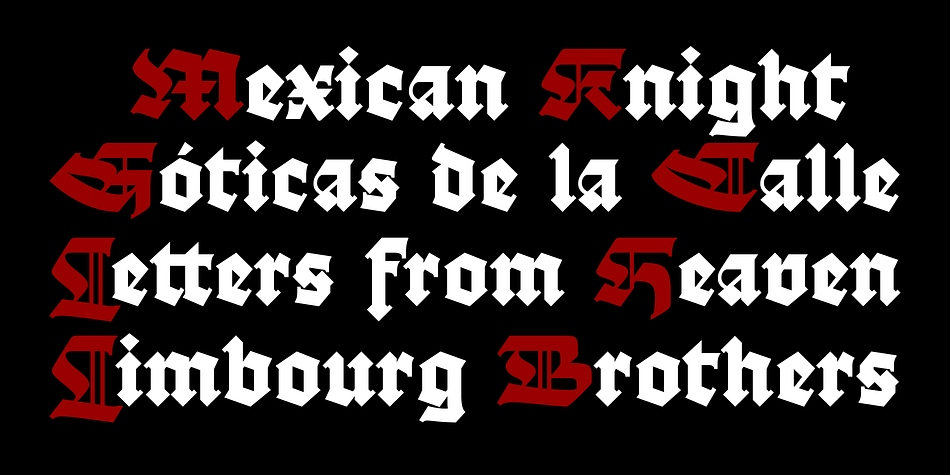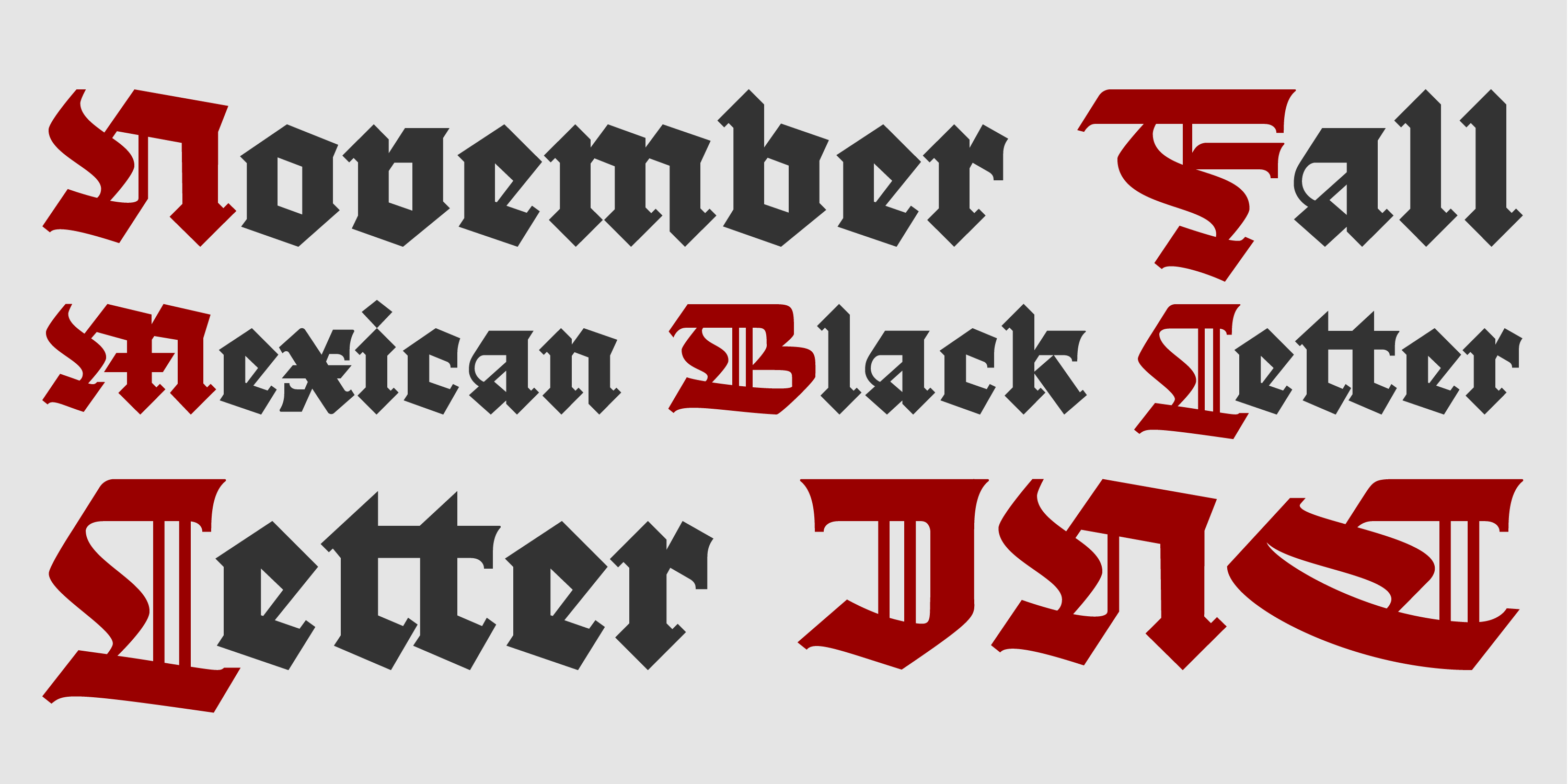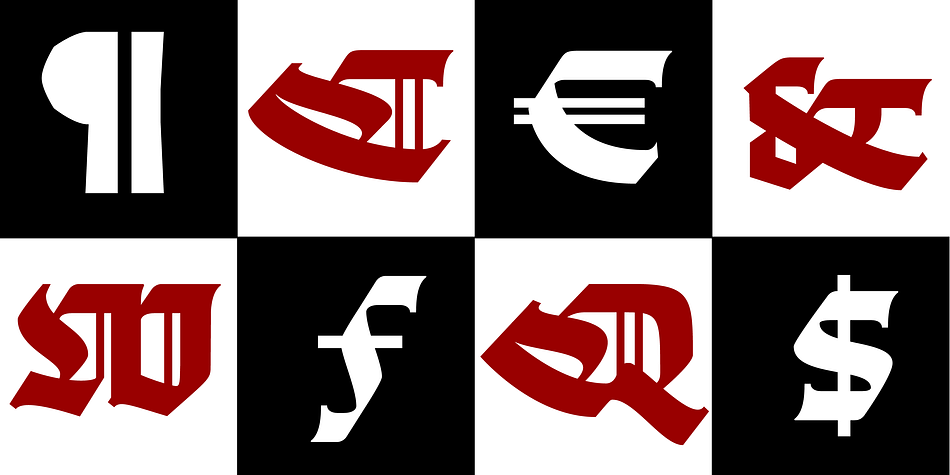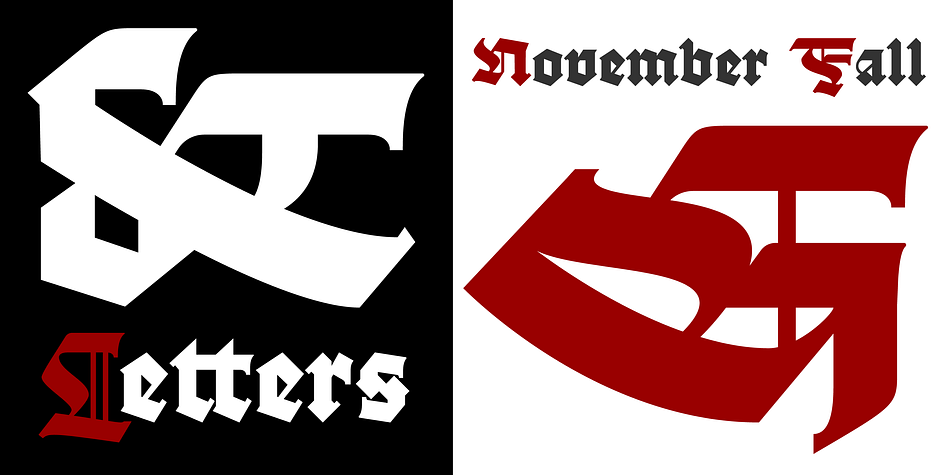
Designed by Miguel A. Contreras Cruz, November Fall is a blackletter font published by Letter INC.
November Fall is a Mexican blackletter font inspired by street sign painting. Published by Letter INC.
Foundry | Letter INC. |
Style | Blackletter |
Designer | Miguel A. Contreras Cruz |